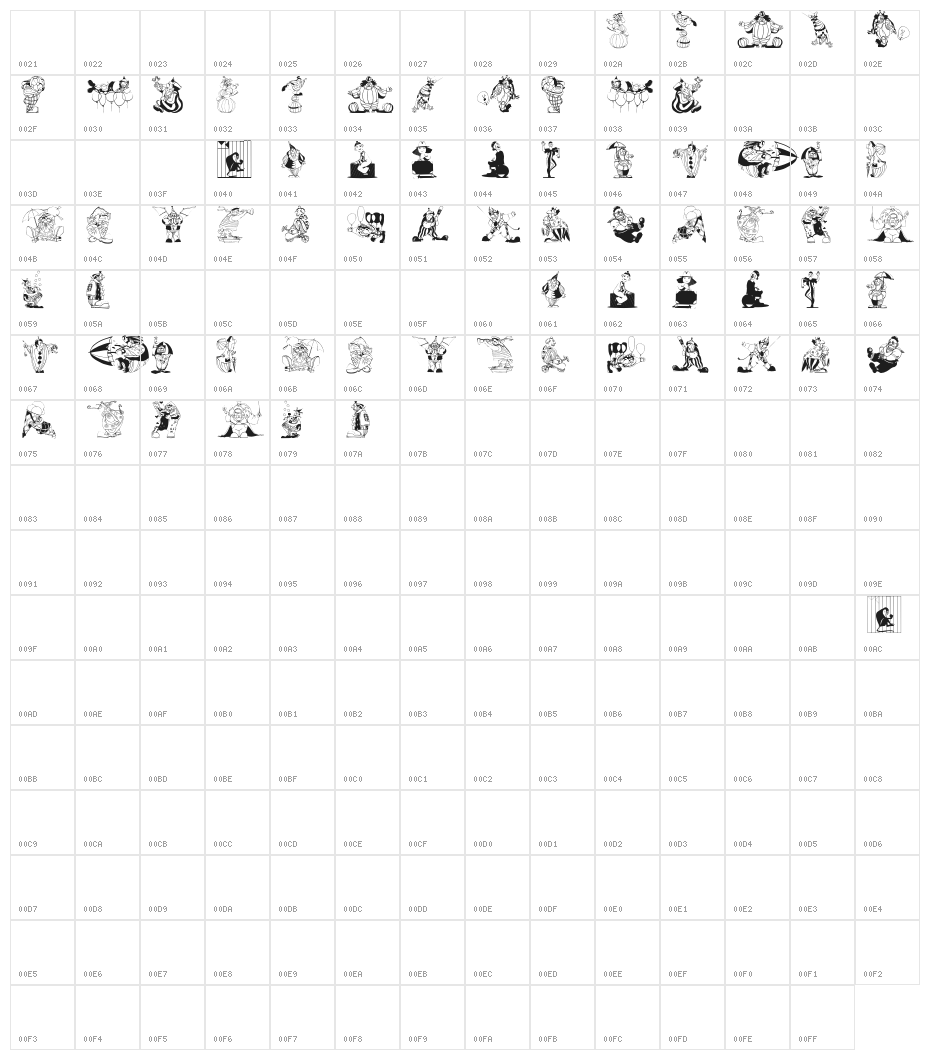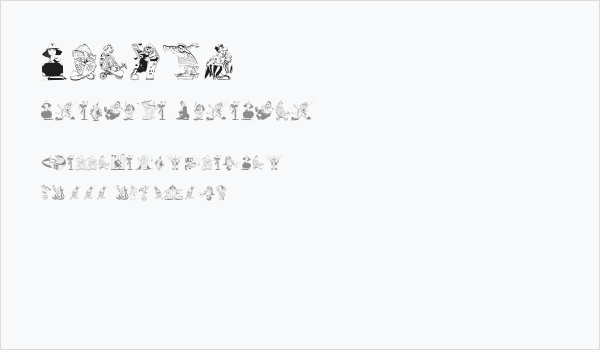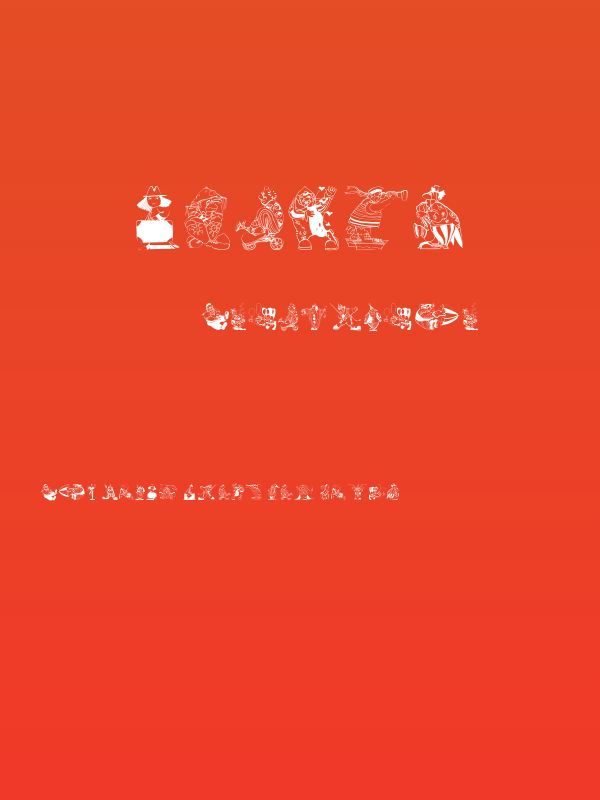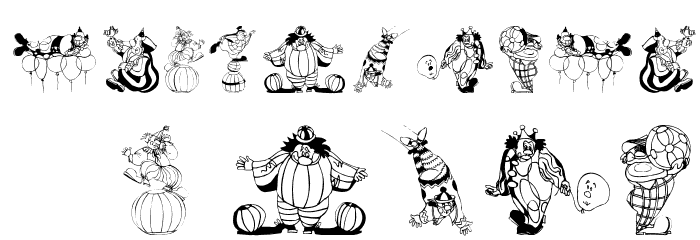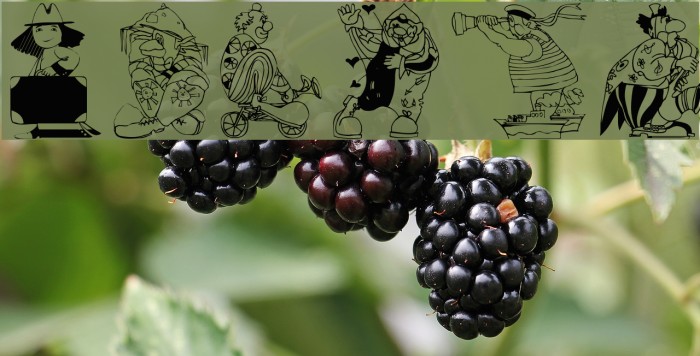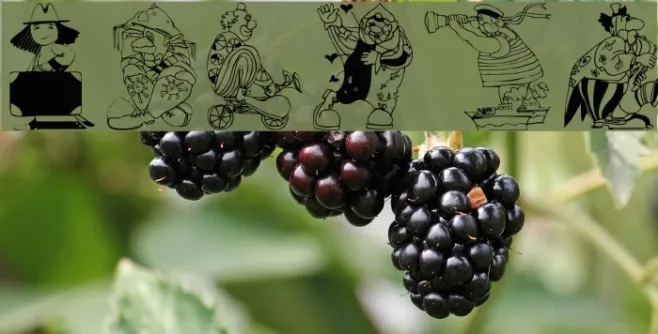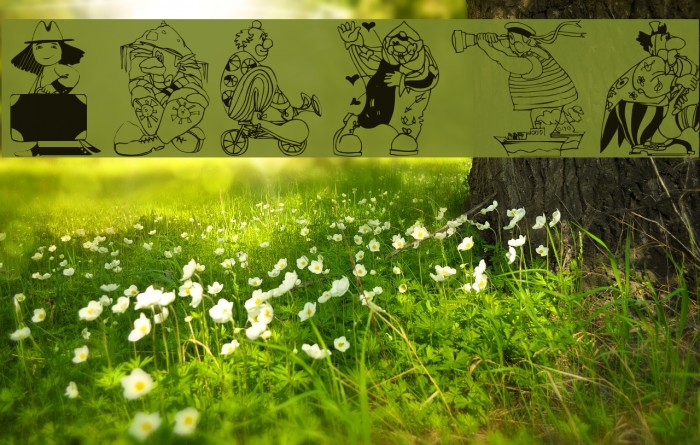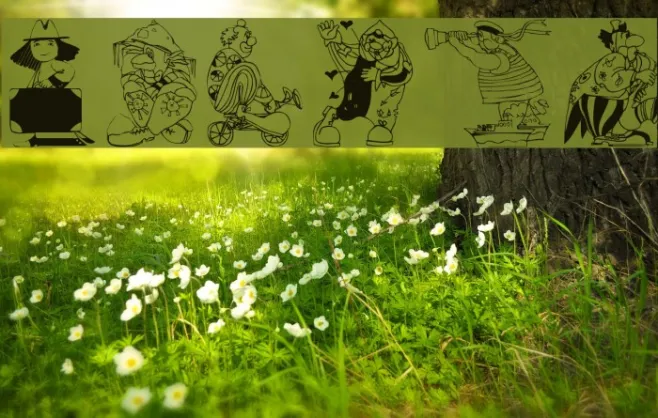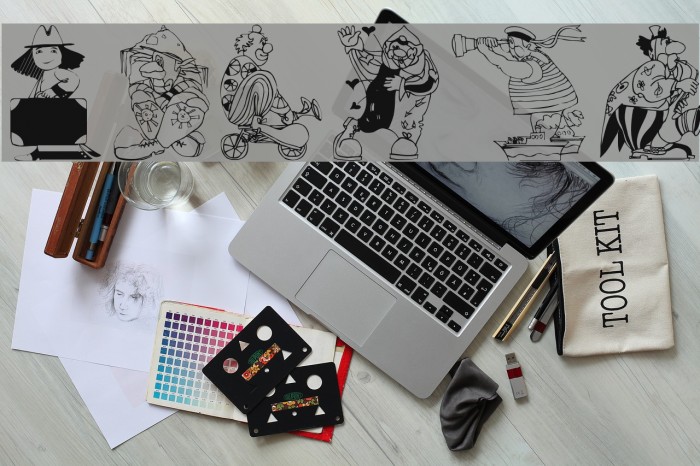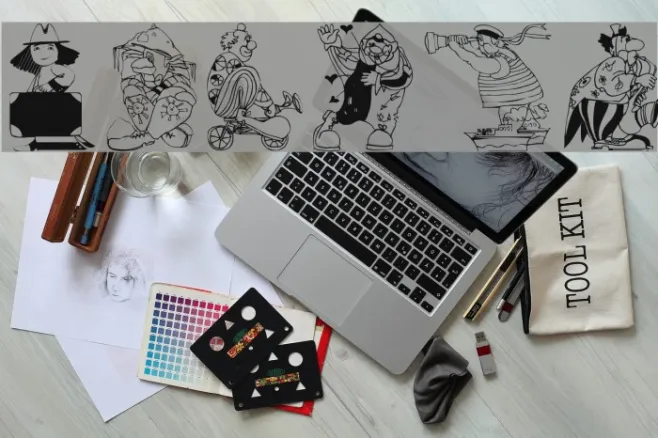
Clowns Font
Clowns Description
A whimsical and highly decorative display font where each character is represented by a unique clown illustration, featuring exaggerated poses, costumes, and props. The glyphs are playful, detailed, and vary widely in silhouette and complexity, making legibility secondary to visual impact.
| Overall Style | Decorative, Whimsical, Playful |
| Use Case | Logos, Headlines, Posters, Themed Events |
| Proposed Projects | Children’s party invitations, circus-themed posters, playful branding, event flyers, novelty merchandise. |